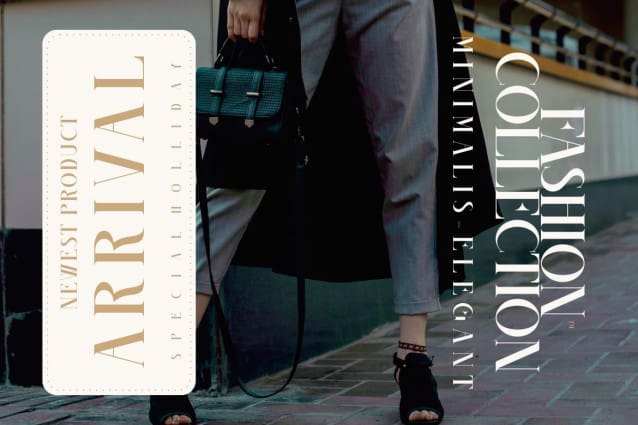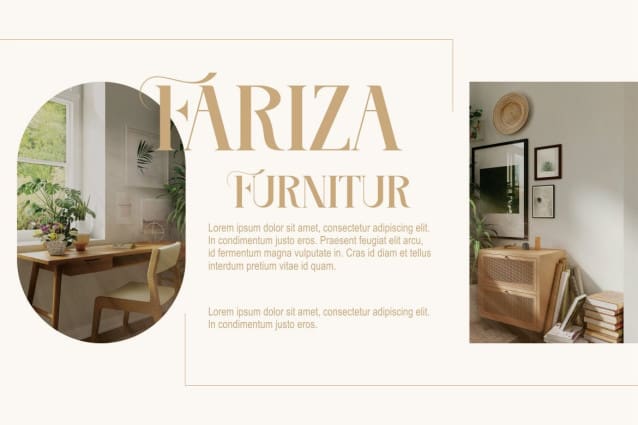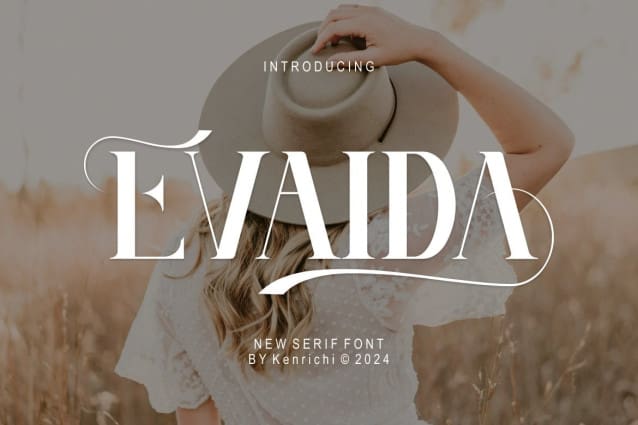
Evaida Font
Evaida Font is a modern and authentic font. Perfect for both professional and branding needs of a product. This font is suitable for any branding project like quotes, logo, blog header, poster, banding, letter, invitation, stationery, etc… Designed as a versatile and flexible that can be used on a range of projects and mediums. outstanding in a wide range of contexts.